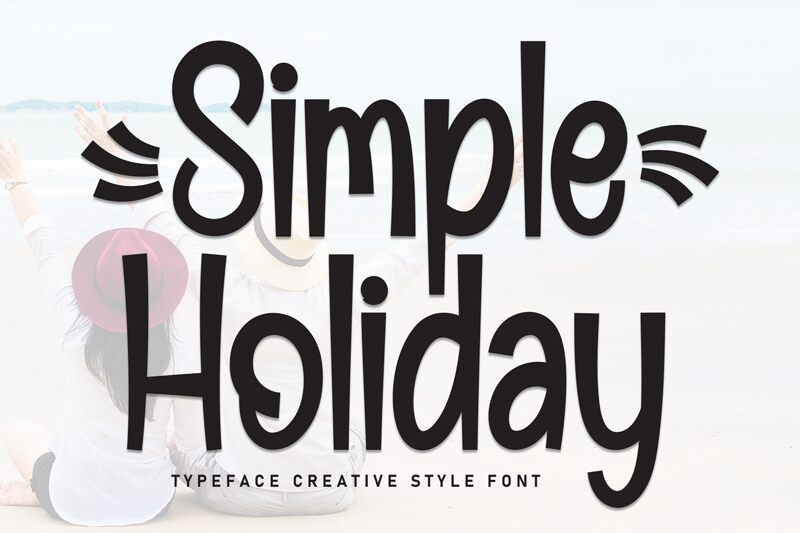
Simple Holiday
Simple Holiday font by Scratchones is a whimsical display font with a casual and hand-drawn appearance. Its approachable and friendly impression makes it an ideal choice for projects that aim to convey warmth and ease. The typeface is free to download, meaning there are no limitations to the number of campaigns or publications created using it.
Simple Holiday finds its place on greeting cards, friendly invitations, children’s books, album covers, personalized stickers with names, coloring books and pages, digital pages for social media including both ads and posts, stationery designs such as notebooks or bookmarkers among many others!